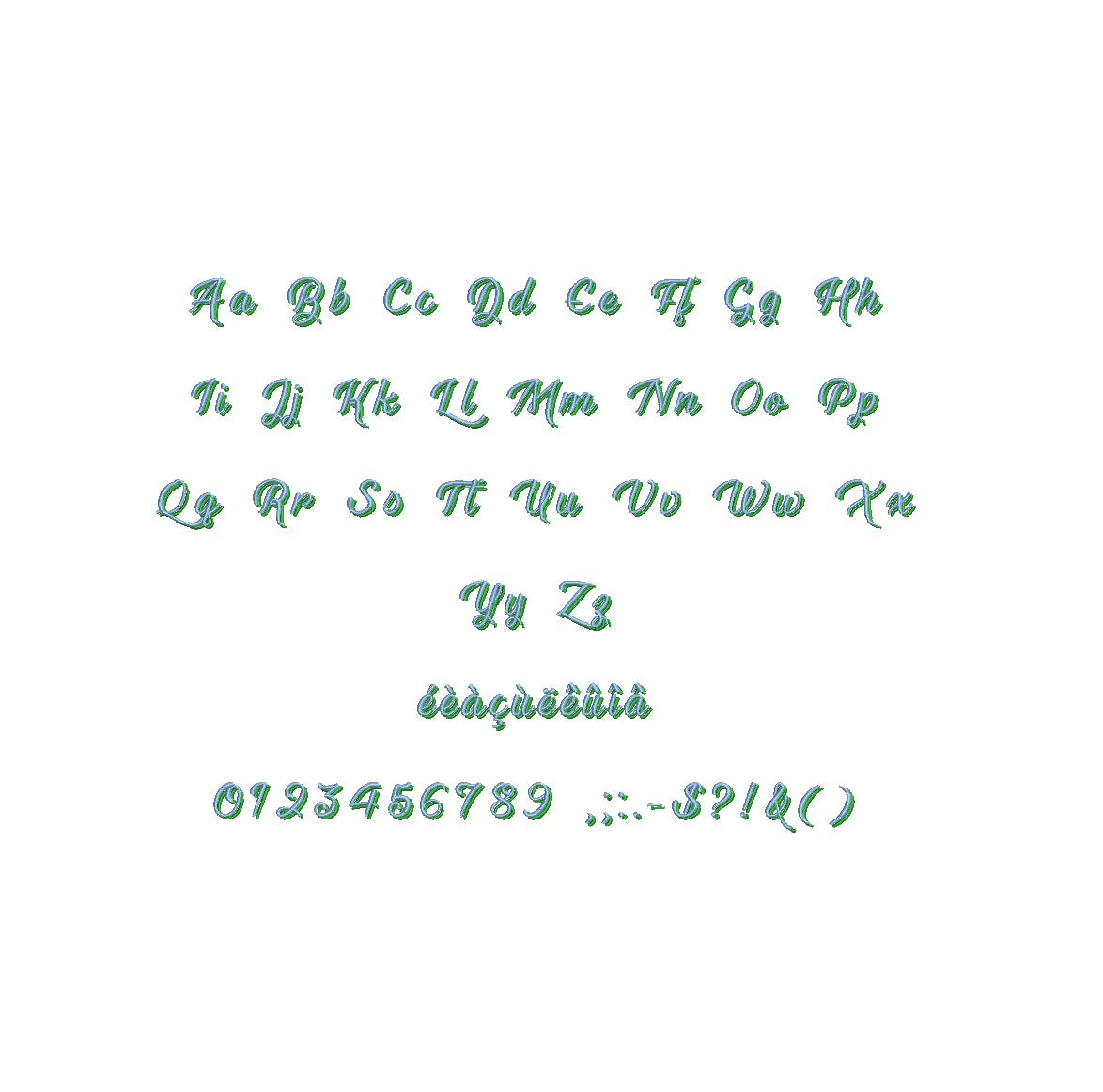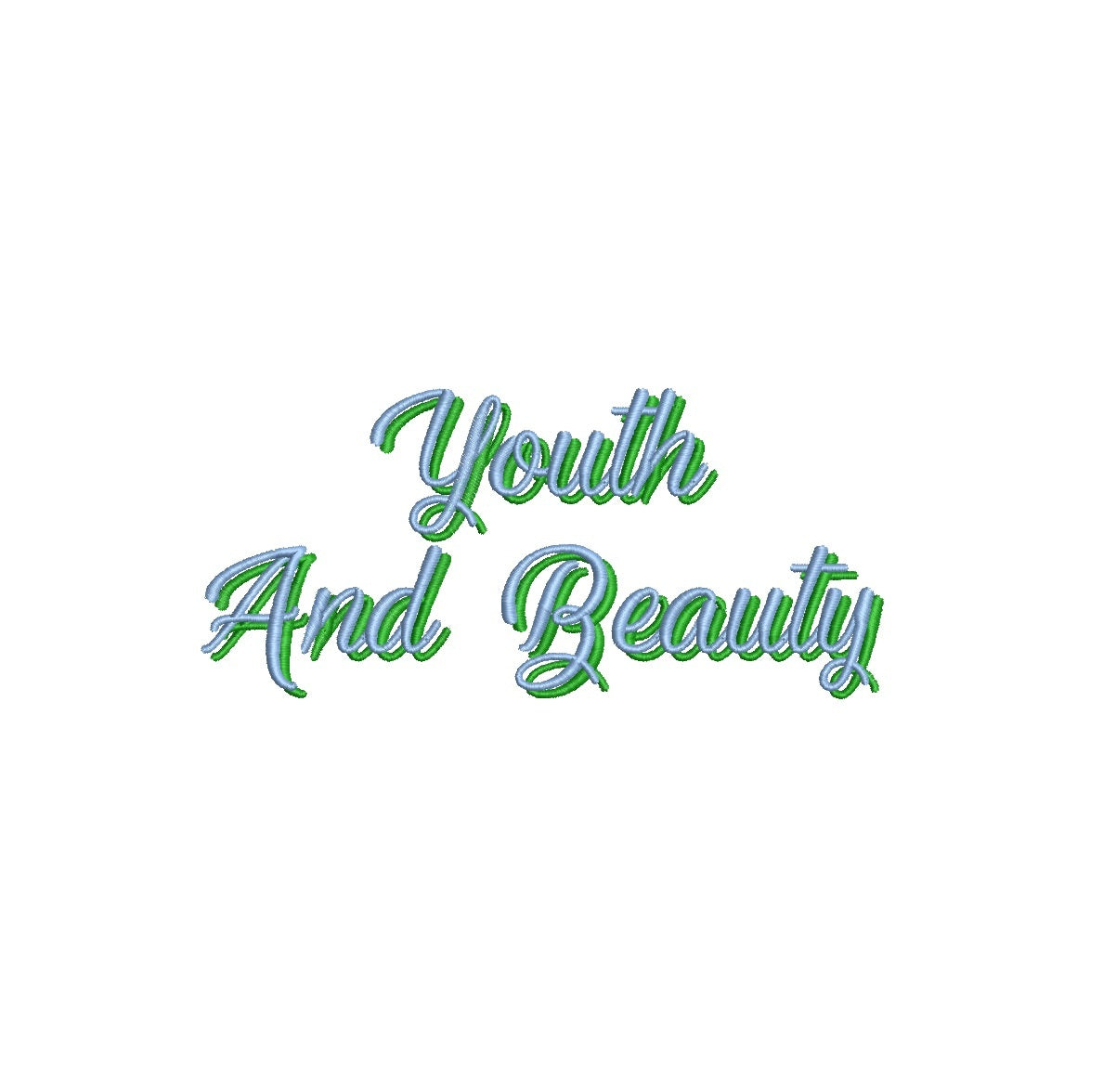
Elevate your embroidery with the captivating Youth And Beauty Shadow ESA font. Created for Wilcom Studio e4.5.6 and Hatch 3 versions and newer, this 2 color font effortlessly combines youthful vibrancy and compatibility. Craft dynamic designs with its enchanting shadow effect, adding depth and allure to your lettering. Perfect for various applications, from modern motifs to stylish text layouts. Unleash your creativity as the Youth And Beauty Shadow ESA font enriches your embroidery. Elevate your creations and leave a lasting impression. Choose this font to infuse your designs with a touch of vibrant energy, redefining your embroidery artistry with modern flair.